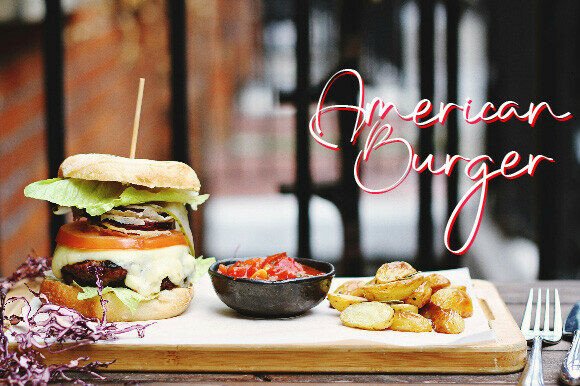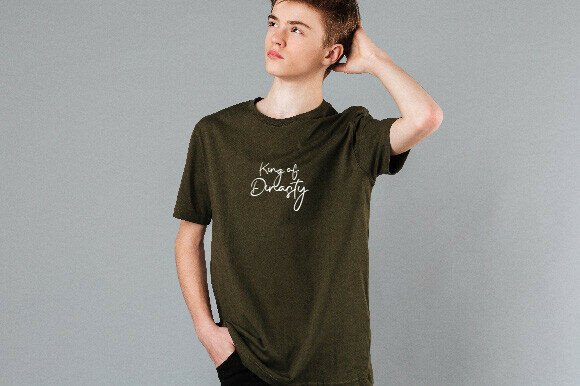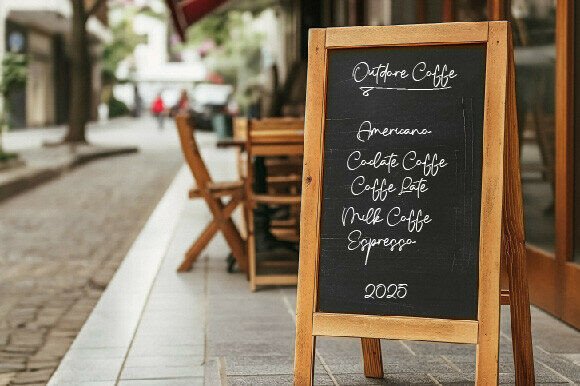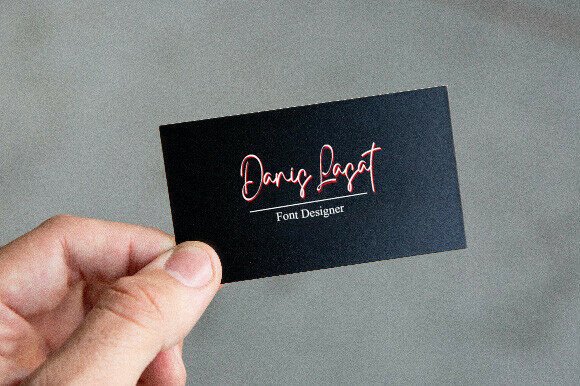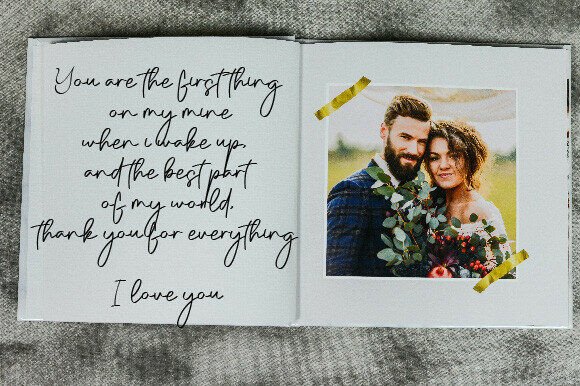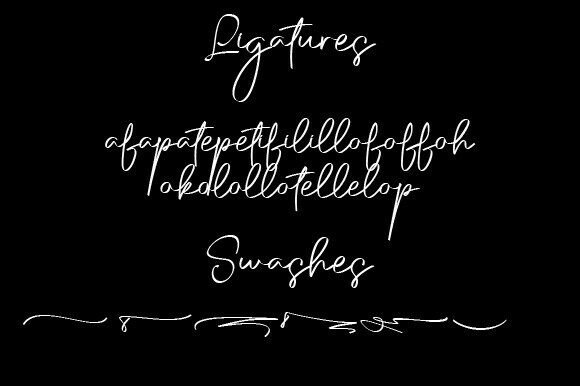
Introduction to Dumble Font
The Dumble font is a captivating interplay of calligraphy-styled scripting.
This elegantly styled typeface infuses sophistication and charm into your wedding themes and brings finesse to packaging designs, amplifying the allure of your products Transform your ordinary branding projects into highly engaging visual narratives, or reinvigorate your magazines and social media platforms, attracting eyeballs everywhere.